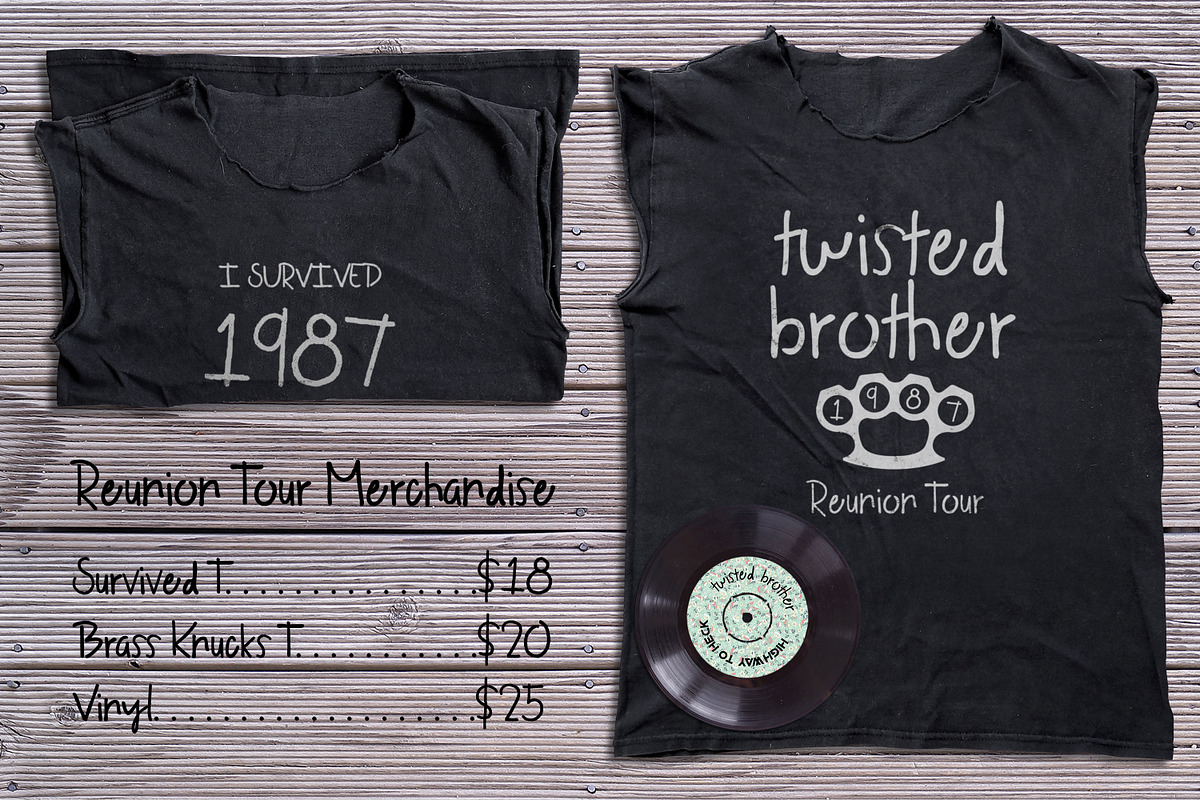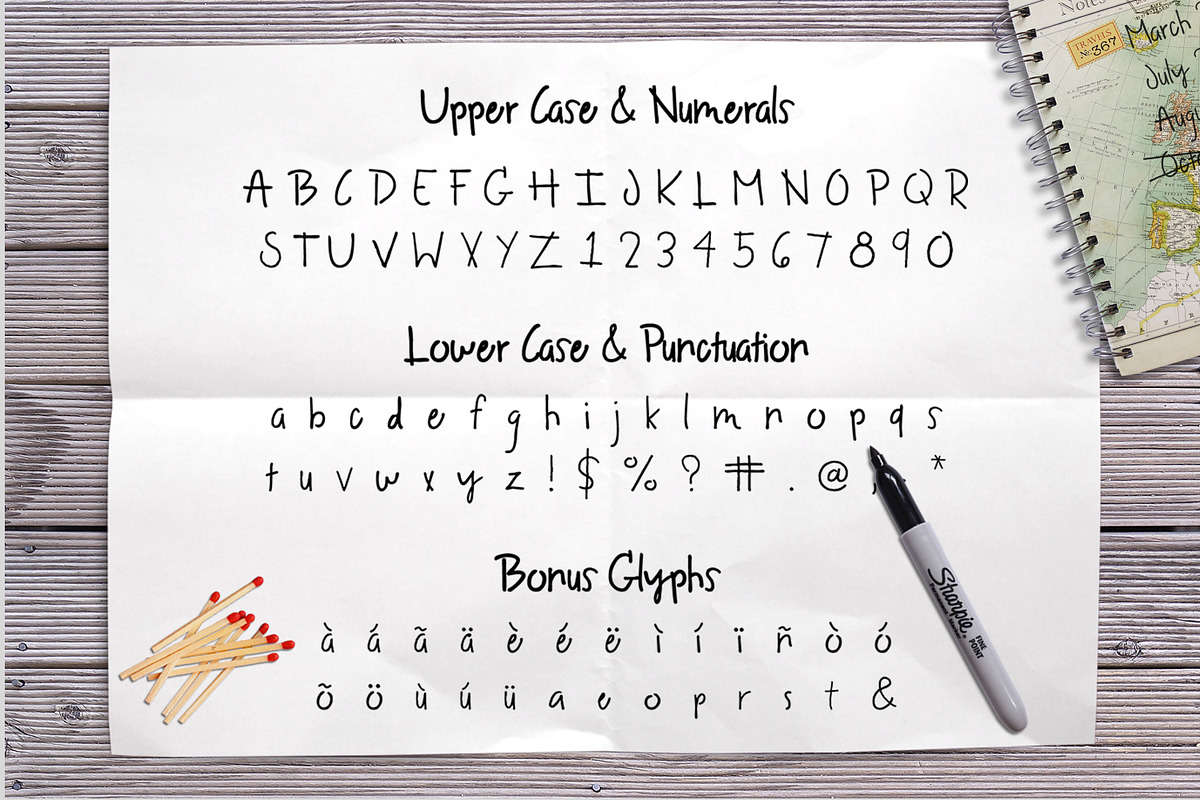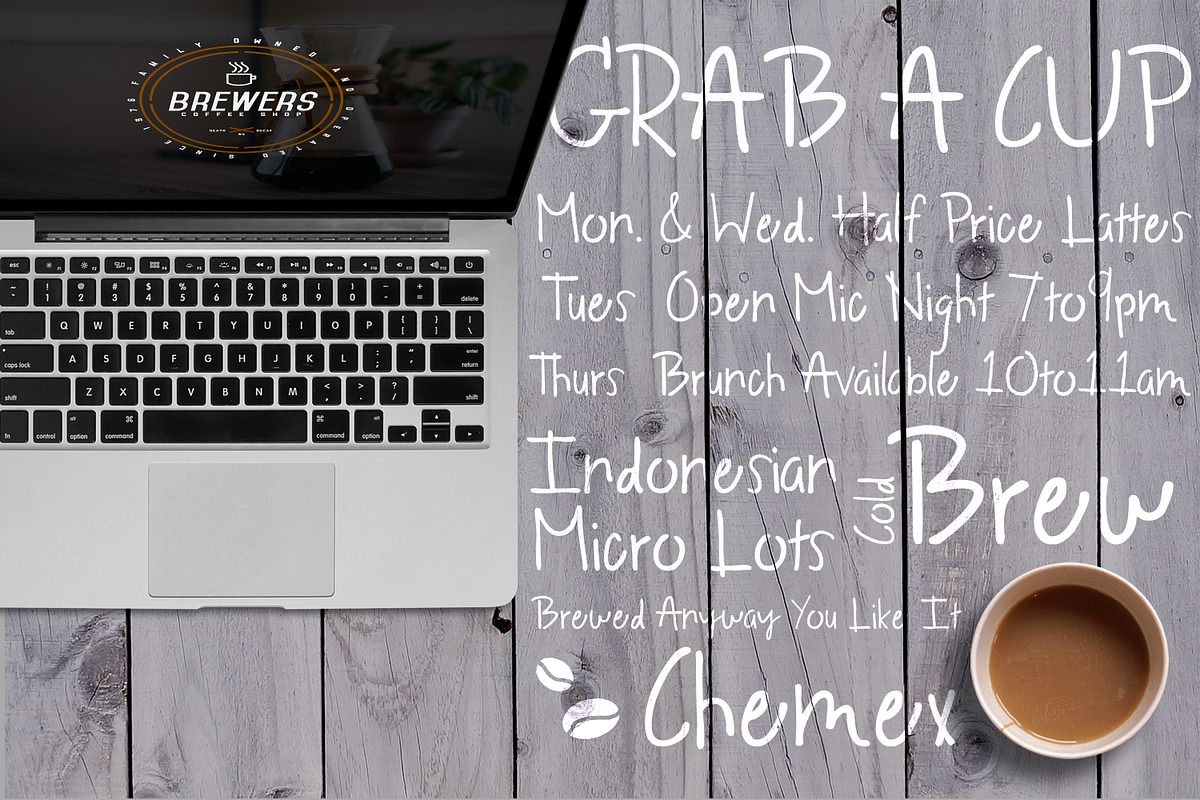
Borderland Font
Borderland Font by Flycatcher Design is a font selected for branding, posters, packaging, typography.
- The font includes 26 capitals, 26 lowercase, limited punctuation, and OVER 25 BONUS glyphs including language support characters.
- This sans serif is perfect for logos, typography, prints, and accent pieces on your restaurant menus.
Why Borderland Font is worth a look
Borderland Font by Flycatcher Design fits naturally into Branding, posters, packaging, typography.